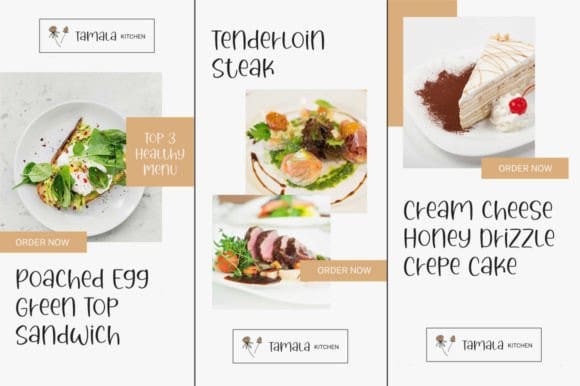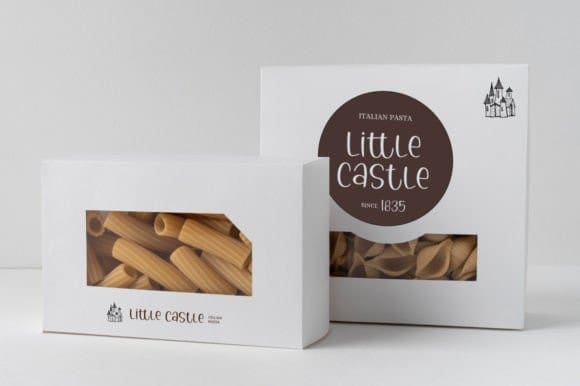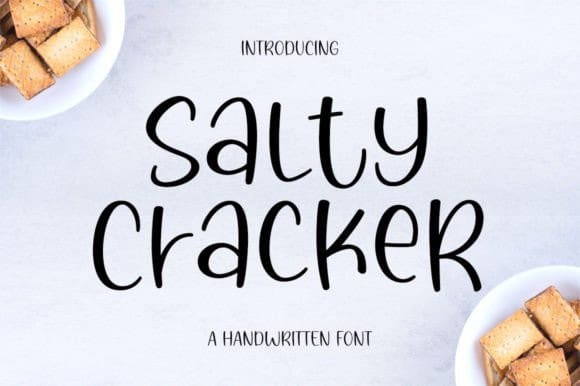
Salty Cracker Font
Salty Cracker Font is a delicate and simple-lettered handwritten font, perfect for all the chalkboard quotes and teaching materials you wish to create! Its authentic look will add a personal and realistic feel to your designs.